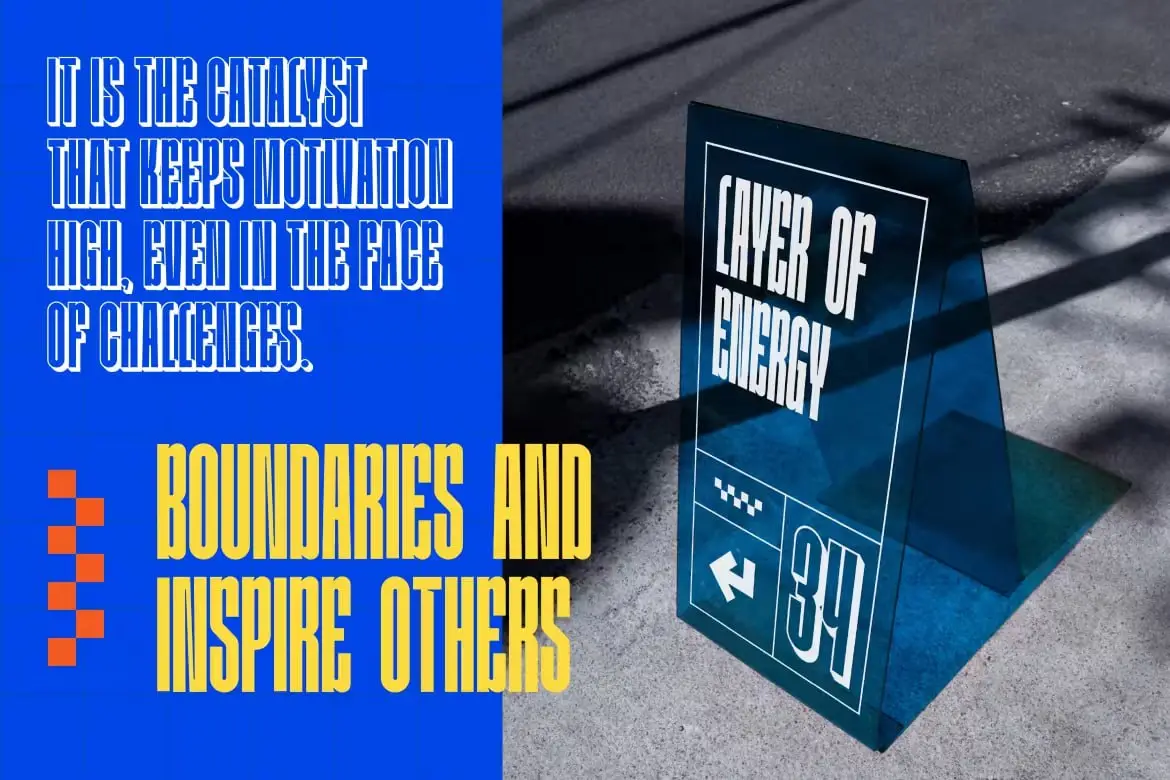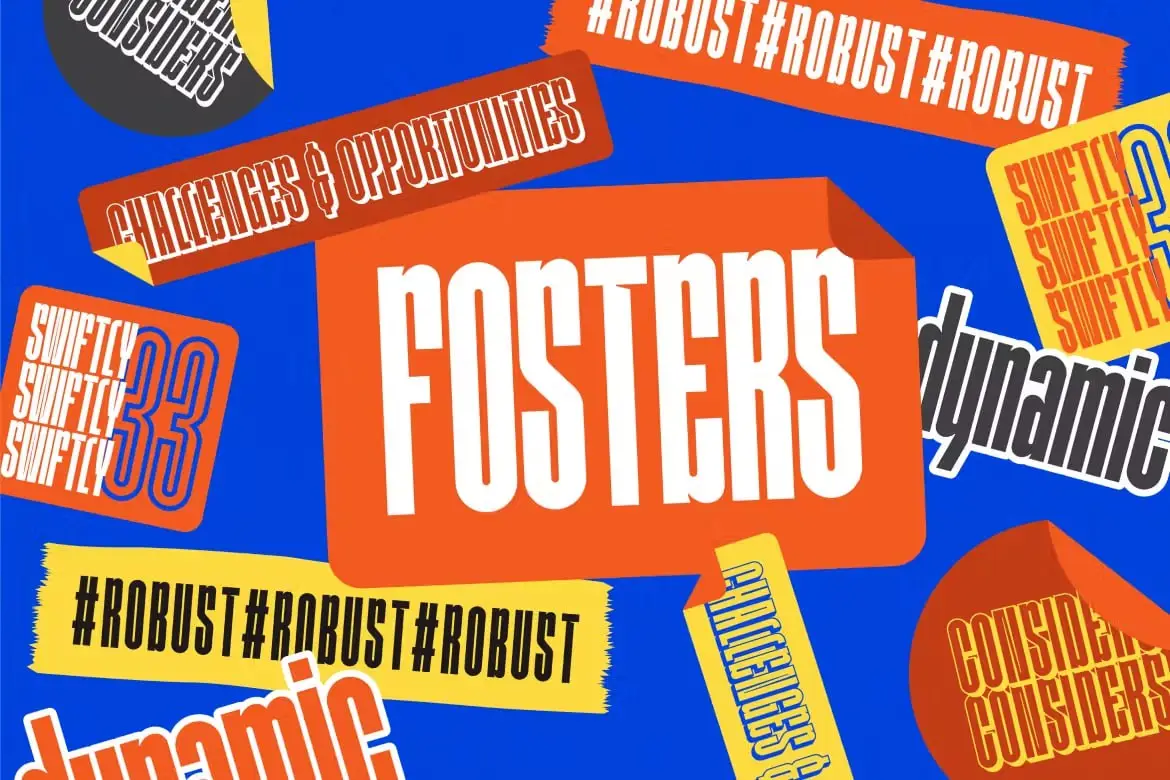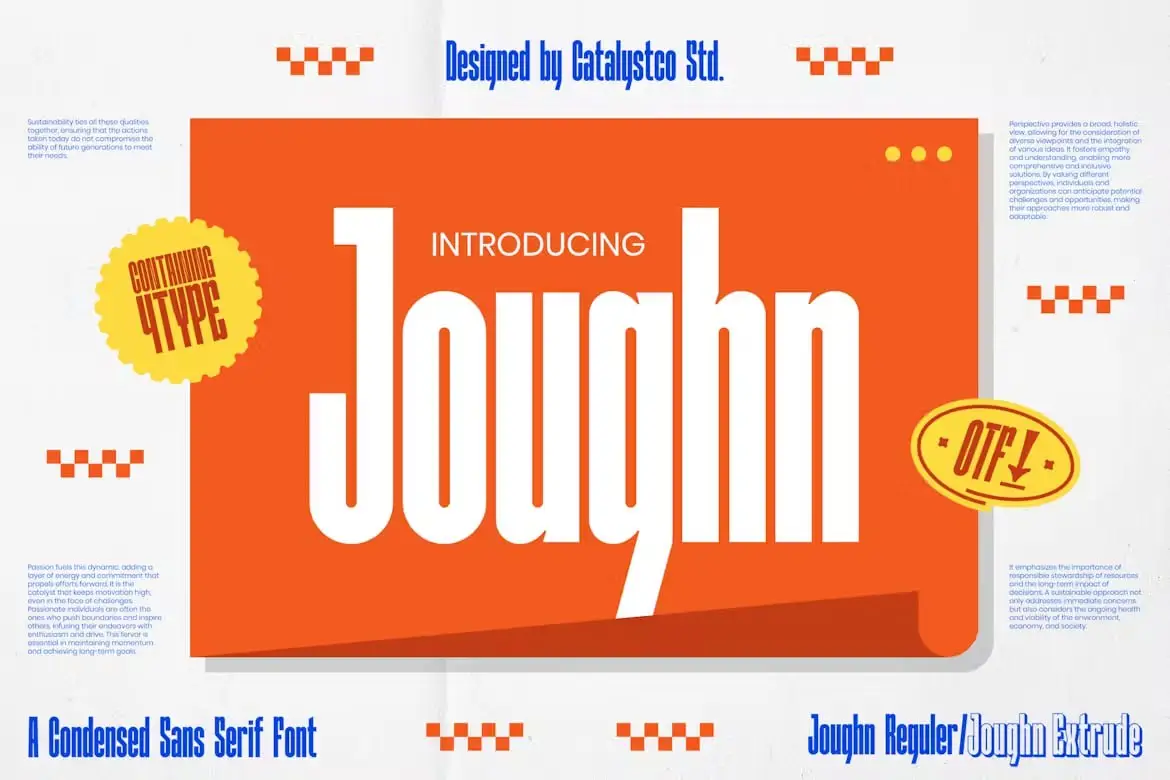
Joughn Condensed Sans Serif Font
Introducing the Joughn Condensed Sans Serif Font, a sleek and modern typeface designed for versatility and clarity. This font features a condensed style, making it ideal for a variety of applications where space is at a premium.
• Stylish condensed sans serif design
• Multiple weights for diverse usage
• Clean lines and excellent legibility
• Perfect for headlines, branding, and UI design
• Ideal for branding, logos, and print materials
• Use in web design for a clean and modern look
• Great for user interfaces and app design